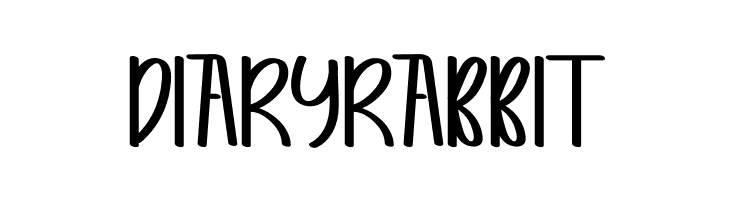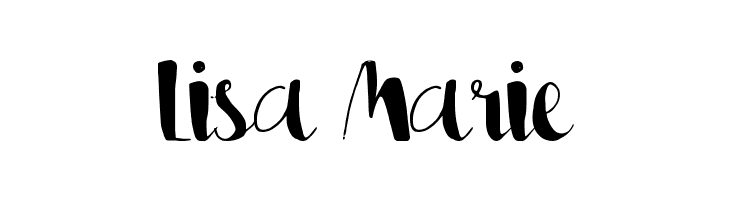
A whimsical, handwritten font with playful, uneven strokes.
A cursive, handwritten font with elegant, flowing lines.
A playful handwritten font with smooth curves and a friendly appearance.
A modern, light, backslant sans-serif font with a sleek and dynamic style.
A futuristic, segmented line font with a digital aesthetic.
A bold, semi-italic font with a geometric, angular design.
A dynamic and expressive handwritten script font with fluid, cursive letterforms.
A bold, angular, and italicized font with a futuristic and dynamic style.
A bold, playful font with rounded, exaggerated curves and thick strokes.
A modern, hollow font with clean lines and rounded edges, offering a unique and airy appearance.